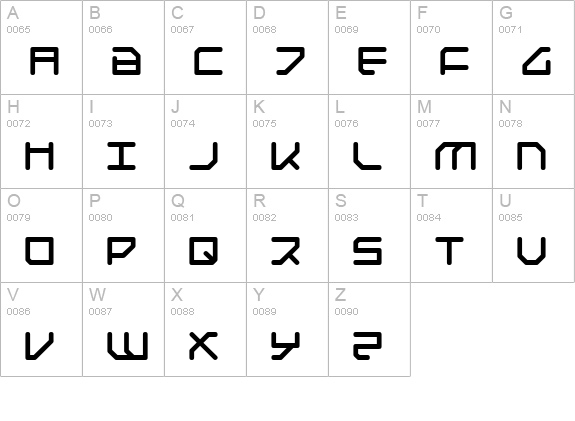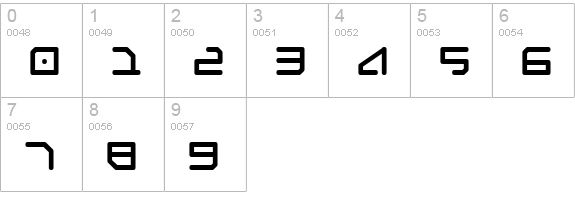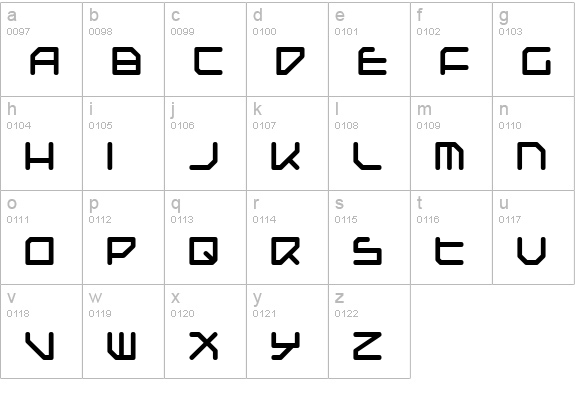
Federapolis Bold is a strong, high-contrast variant in the Federapolis typeface family \xE2\x80\x94 well suited to headlines, attention-grabbing titles, and strong calls-to-action.
Federapolis Bold font exudes a sense of strength and modernity with its bold and assertive design. This sleek and versatile typeface is perfect for making a bold statement in your designs. The clean lines and sharp angles of Federapolis Bold make it stand out on any project, whether it's for branding, advertising, or editorial purposes. What sets Federapolis Bold apart is not just its striking appearance, but also the fact that it is available for free download at FontsMarket.com. This means you can easily access and use this stunning font without any cost, making it a valuable addition to your font library. Add a touch of sophistication and professionalism to your designs with Federapolis Bold today.